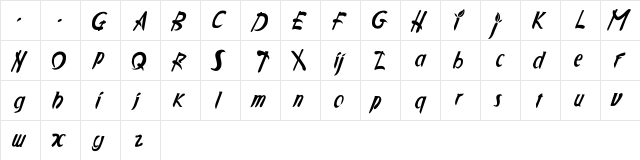
Applejuiced Original
| Foundry | High-Logic |
| Designer | High-Logic - Erwin Denissen 1999 |
Design Context for Applejuiced Typeface
Applejuiced is a composed and adaptable typeface that performs quietly and consistently across a wide range of design contexts.